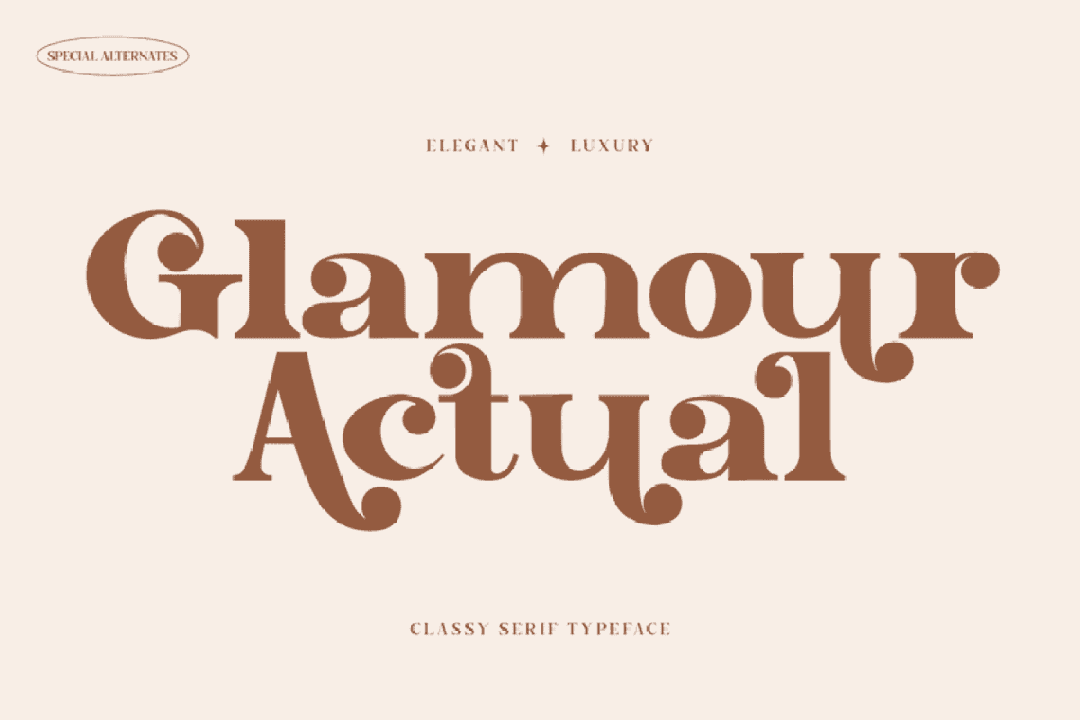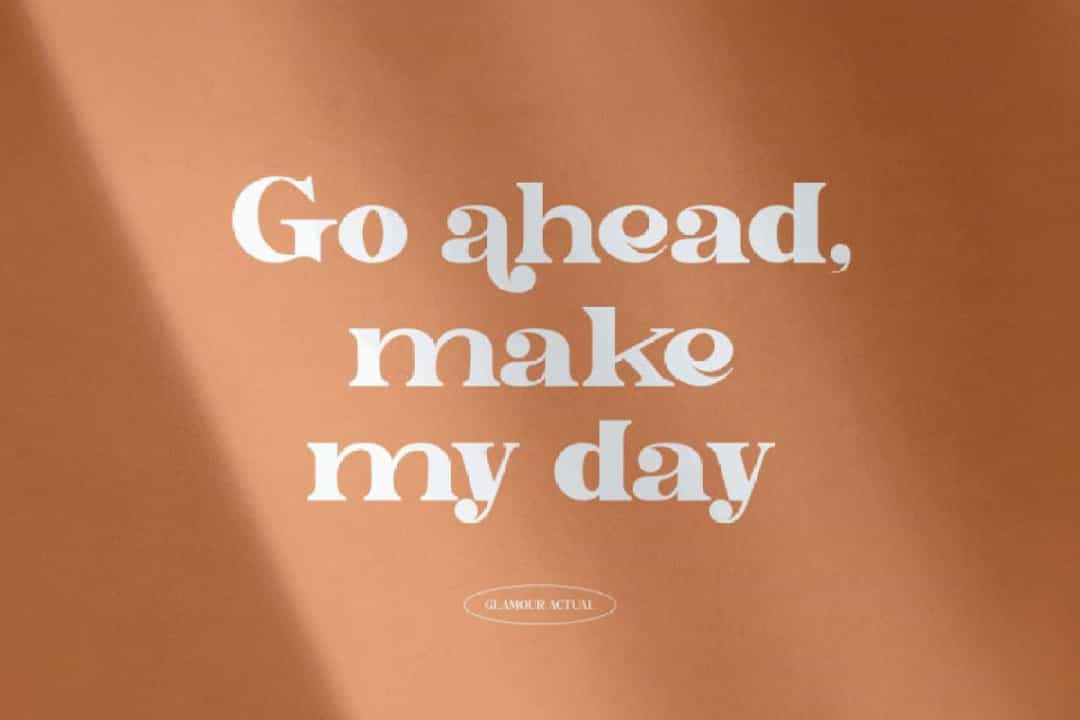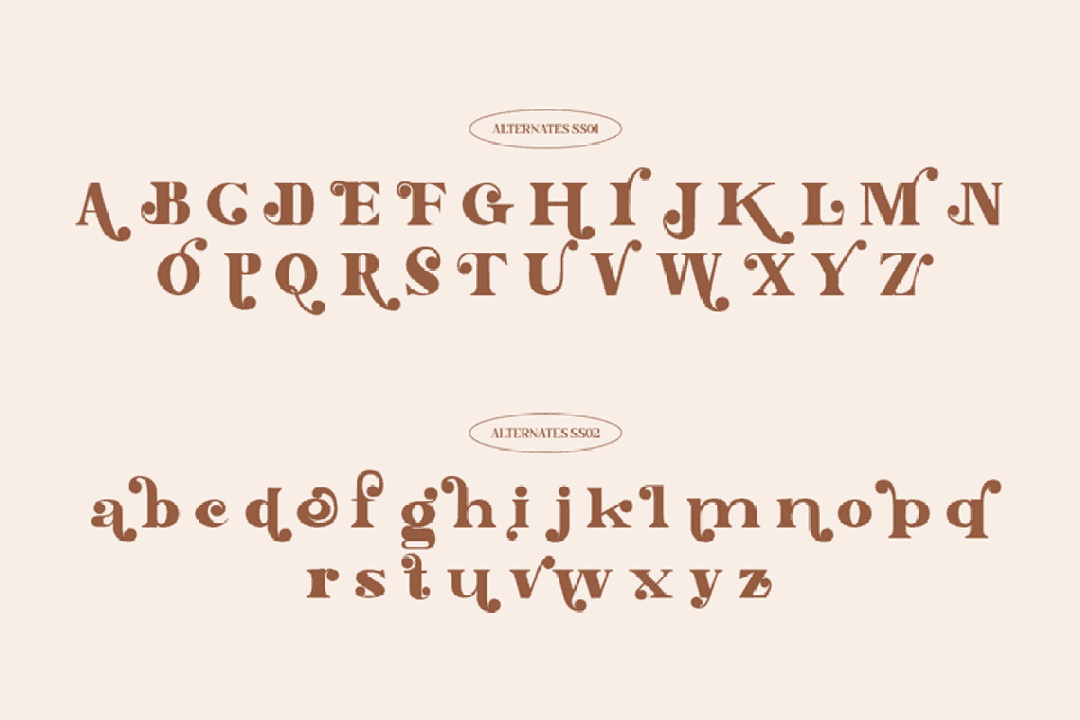
Glamour Actual is an elegant serif typeface. Suitable for use in any design style and occasion, its versatility makes it the ideal choice for feminine fashion designs and texts alike. PUA encoded, you have access to all its glyphs and swashes easily!